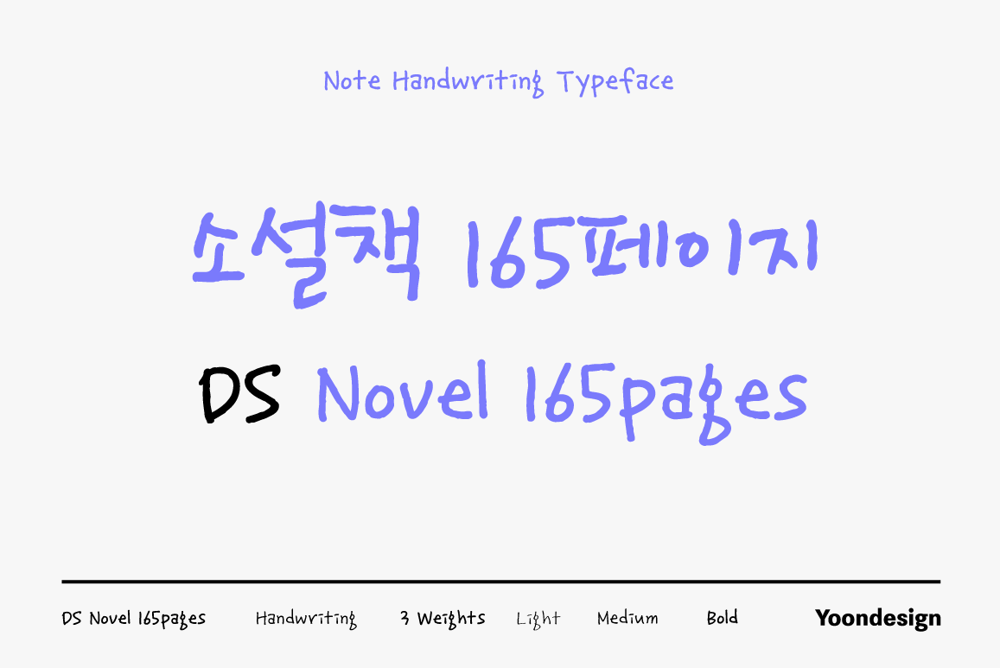
DS Novel165page Font Family was designed by Yoon Design Team and published by Yoon Design. DS Novel165page contains 2 styles and family package options. DS Novel165page Family is based on a note a girl wrote to her boyfriend shortly as long they love. Her beautifully controlled handwriting will certainly steal his heart away. This font family has 3 styles and looks beautiful when used for headlines, titling or even long expanses of body copy.